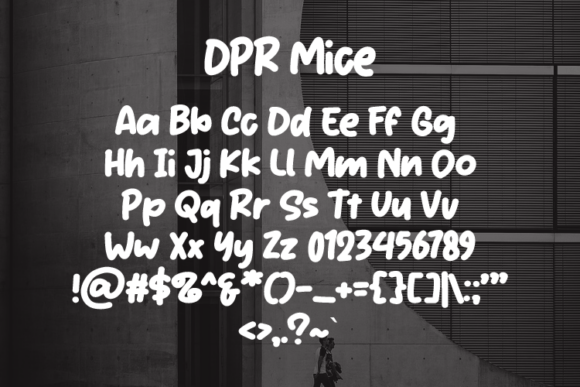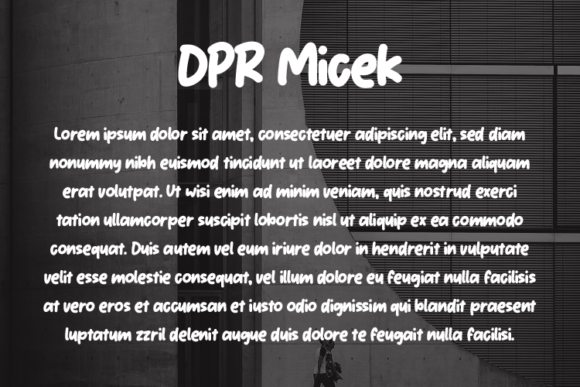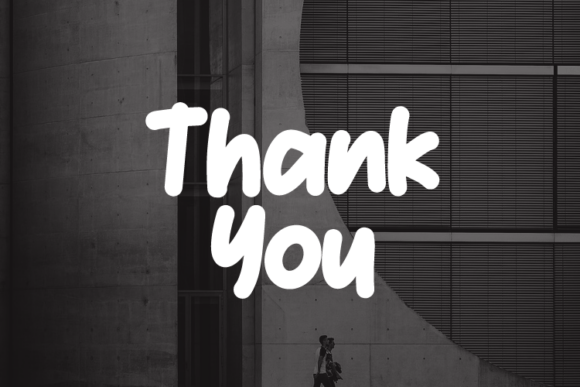
The Ultimate Font for Playful Designs: DPR Mice
I still remember the time I was working on a project for a children’s book, and I was struggling to find the perfect font. The client wanted something fun, playful, and engaging, but also easy to read. I tried countless fonts, but none seemed to fit the bill. That was until I stumbled upon DPR Mice. This bold, chunky font with a fun, rounded, and slightly bouncy aesthetic instantly caught my attention. Its thick, smooth strokes give it a friendly and approachable personality, reminiscent of playful cartoon lettering.
A Personal Review of DPR Mice
- ✨ The font’s playful and energetic vibe makes it perfect for children’s branding, casual apparel, and comic book titles.
- ✅ The bold and chunky design ensures that your text stands out and grabs attention.
- 💡 The font’s smooth strokes and rounded edges give it a friendly and approachable personality.
- 🎉 DPR Mice is highly versatile and can be used for a wide range of projects, from headlines to body text.
While DPR Mice is an excellent font, it’s not without its quirks. Here are a few things to keep in mind:
- 🤔 The font’s bold design can make it difficult to read at small sizes. It’s best used at larger sizes, such as headlines or titles.
- ⚠️ Some of the font’s characters, such as the lowercase letters, can be a bit cramped. This can make it challenging to use for longer blocks of text.
A Practical Guide to Using DPR Mice
The Story Behind DPR Mice
DPR Mice was designed by a team of creatives who wanted to create a font that would bring a playful and energetic vibe to designs. Inspired by classic cartoon lettering and children’s book typography, DPR Mice is the result of a careful balance between fun and functionality. The font’s designers aimed to create a typeface that would be perfect for projects that require a strong, cheerful, and memorable visual presence.
Q: What is DPR Mice?
A: DPR Mice is a bold, chunky font with a fun, rounded, and slightly bouncy aesthetic.
Q: What is DPR Mice best used for?
A: DPR Mice is perfect for children’s branding, casual apparel, impactful headlines, comic book titles, and any project that needs a strong, cheerful, and memorable visual presence.
Q: Is DPR Mice easy to read?
A: DPR Mice is a bold font, and while it’s easy to read at larger sizes, it may be challenging to read at smaller sizes.